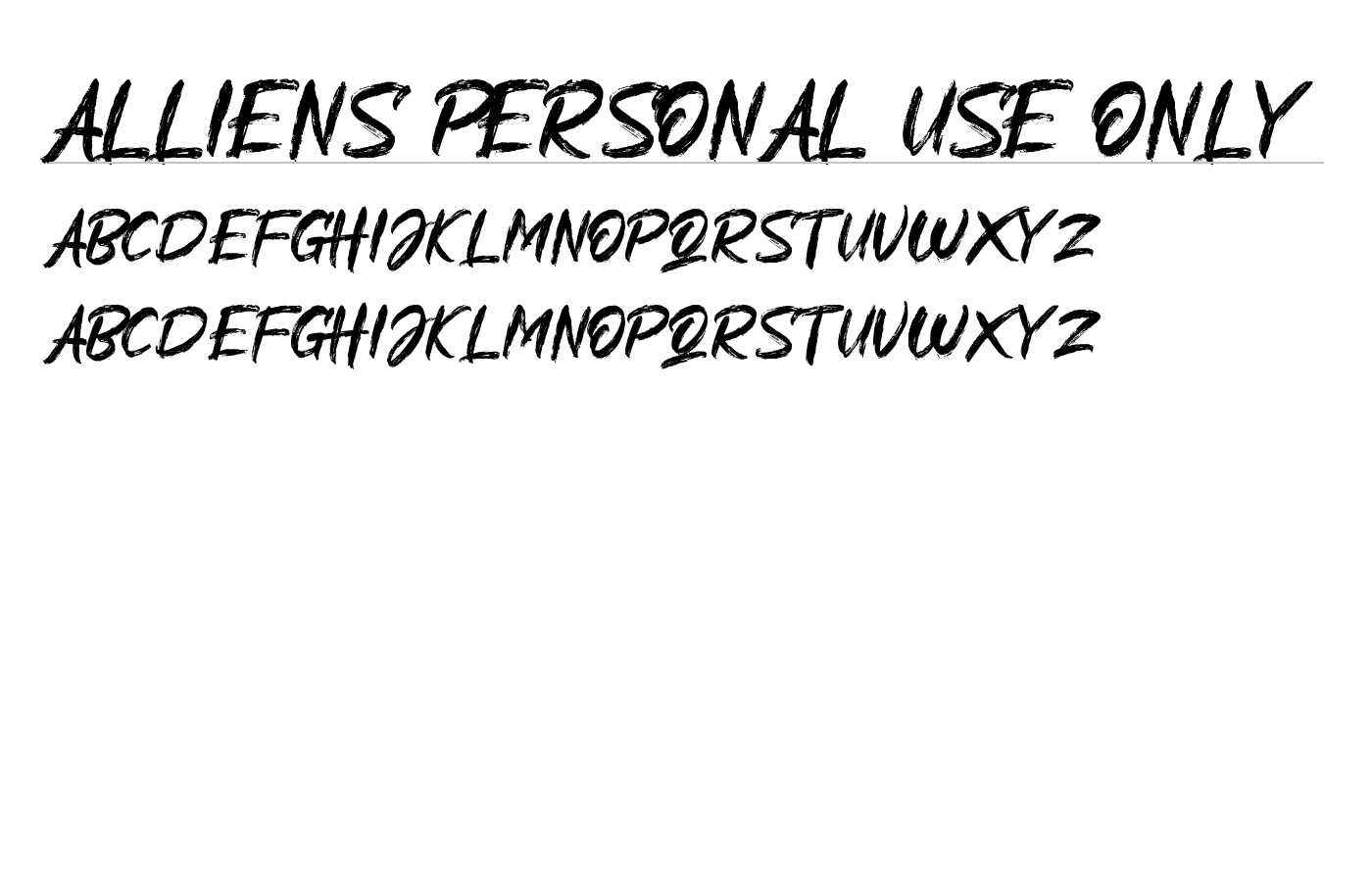
Alliens Personal Use Only is a bold, expressive handwritten font with a rough, textured brushstroke style that gives it an energetic and dynamic feel. Its tall, irregular letterforms and casual, imperfect edges make it perfect for creative projects seeking a raw, edgy, and artistic vibe. This font works well for headlines, posters, and branding that aims to stand out with a personal, handcrafted touch.
Alliens Personal Use Only Font
About Alliens Personal Use Only Font
| Font family | Alliens Personal Use Only Font |
| Designer | Fuad Hasan |